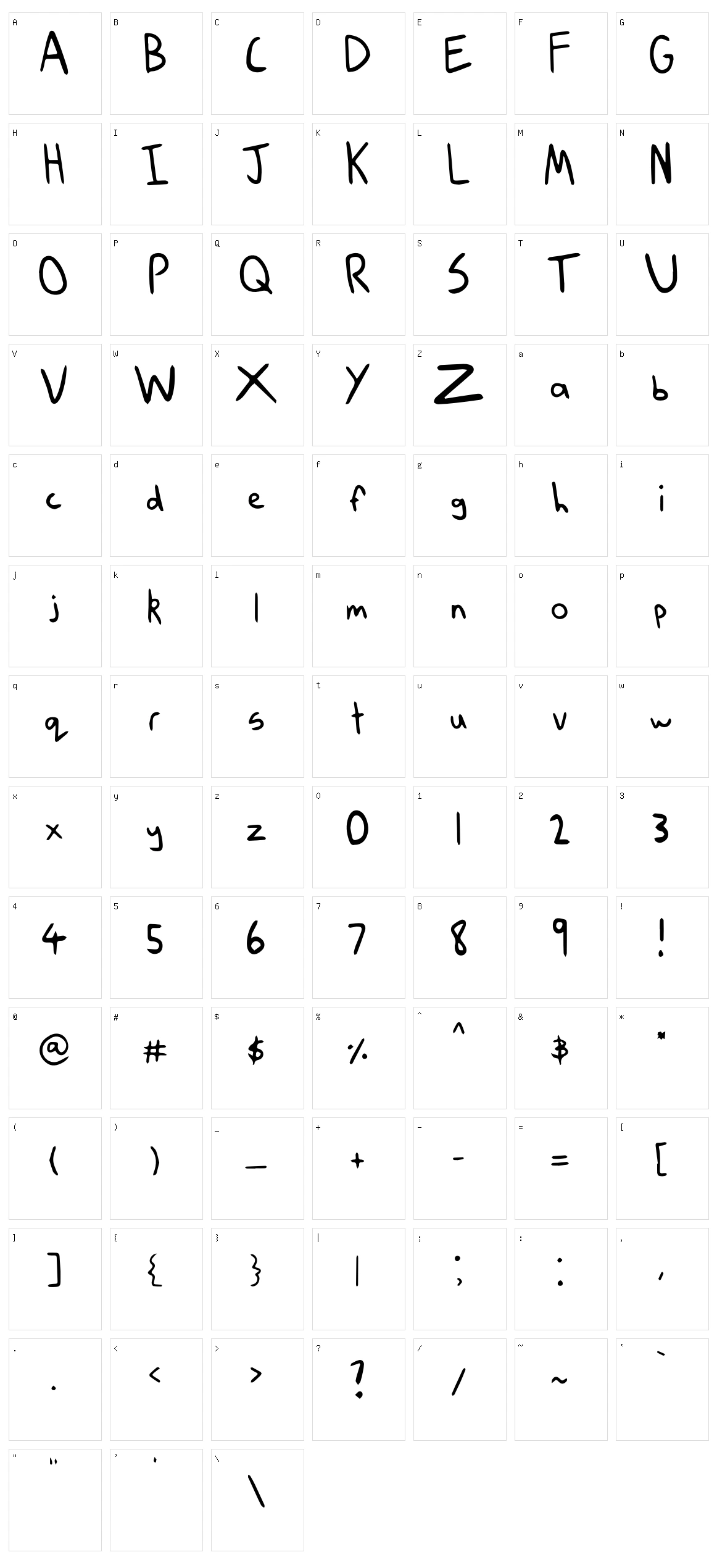
The free font Nutty Pen is carefully designed by Nutti, showcasing a thoughtful balance of creativity and usability and falls under the Script font style. When you download the ZIP file, it contains only 41 KB of font files, making it lightweight and quick to download. Please review the license details below to understand permitted usage and distribution rights. If license information is not available, we recommend using this font for personal projects only or contacting the author directly for commercial usage permissions.